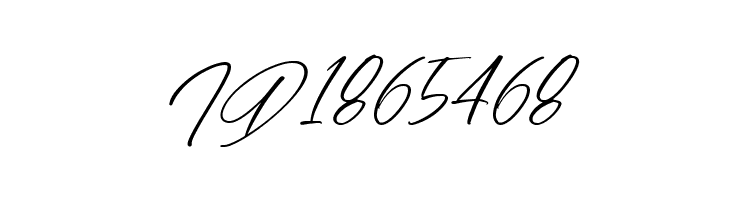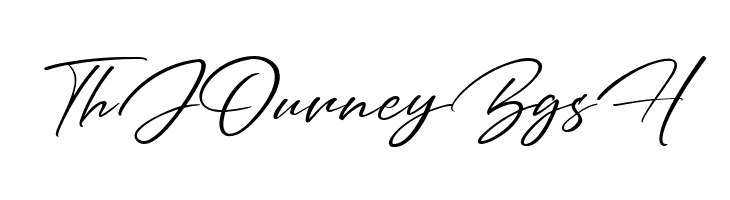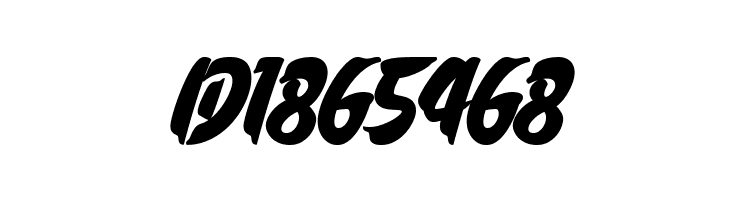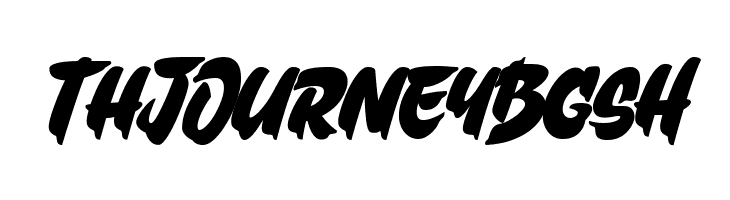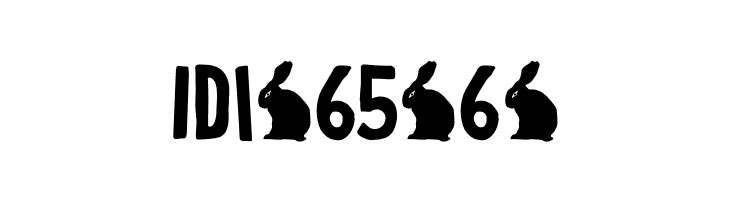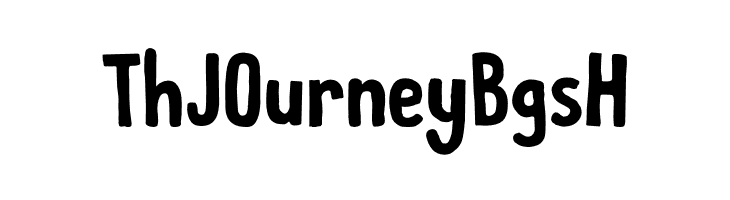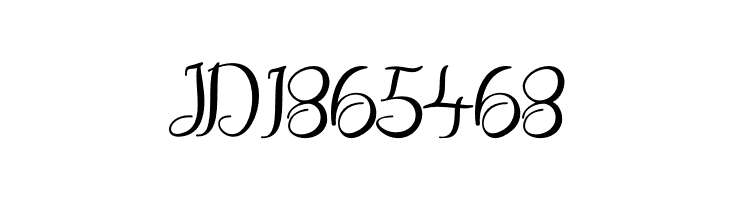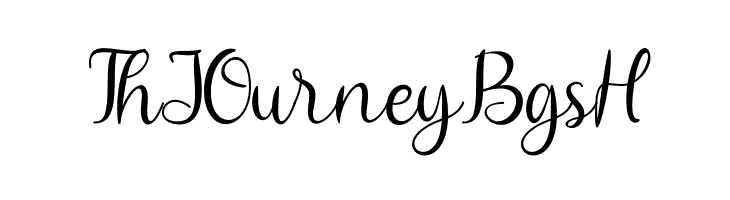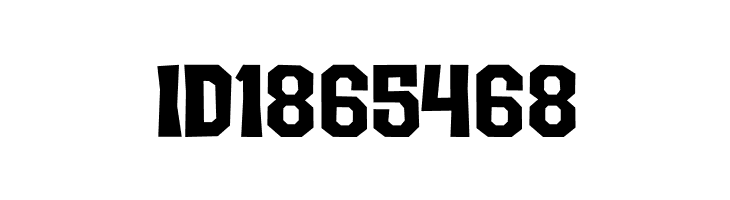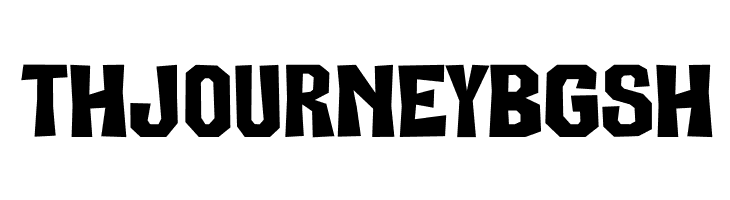
A playful, bold handwritten font with an organic feel.
A bold, geometric font with sharp angles and a strong presence.
A bold, geometric font with an inline style, perfect for impactful designs.
A bold, angular font with a strong, modern aesthetic.
A bold, dynamic script font with thick, flowing strokes and a cohesive, energetic style.
A modern, outlined font with geometric influences and a classic touch.
A playful, hand-drawn font with bold, rounded characters and unique rabbit silhouettes.
A flowing, cursive font with elegant, sweeping strokes.
An elegant and flowing script font with graceful curves and decorative elements.